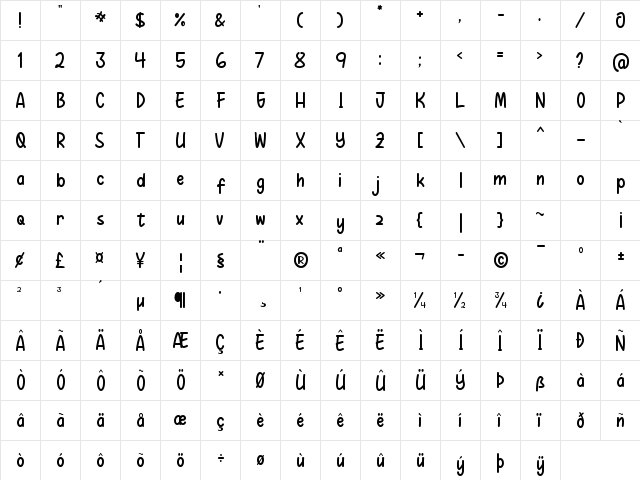
Laillaland Regular
| Designer | Doli Anggia Harahap |
Design Context for Laillaland Typeface
Laillaland takes a measured approach to typography — its balanced proportions and neutral character make it a reliable workhorse for both digital and print work.